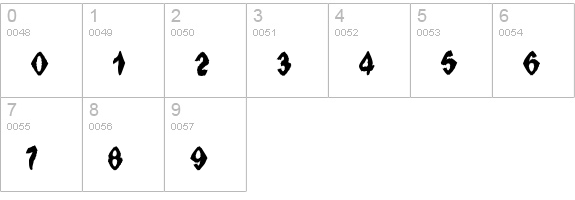
Ingothical Weird Solid Font Details
Introducing the Ingothical Weird Solid font, a one-of-a-kind typeface that combines a mysterious and quirky style with a solid and bold presence. This font features unique and intricate letterforms that are sure to make your designs stand out from the crowd. With its edgy yet sophisticated look, Ingothical Weird Solid is perfect for creating eye-catching headlines, logos, and more. What sets Ingothical Weird Solid apart is not only its distinctive aesthetic but also the fact that it is available for free download at FontsMarket.com. That's right, you can easily access this captivating font to elevate your projects without any cost. Embrace the unconventional and add a touch of intrigue to your designs with the Ingothical Weird Solid font today.